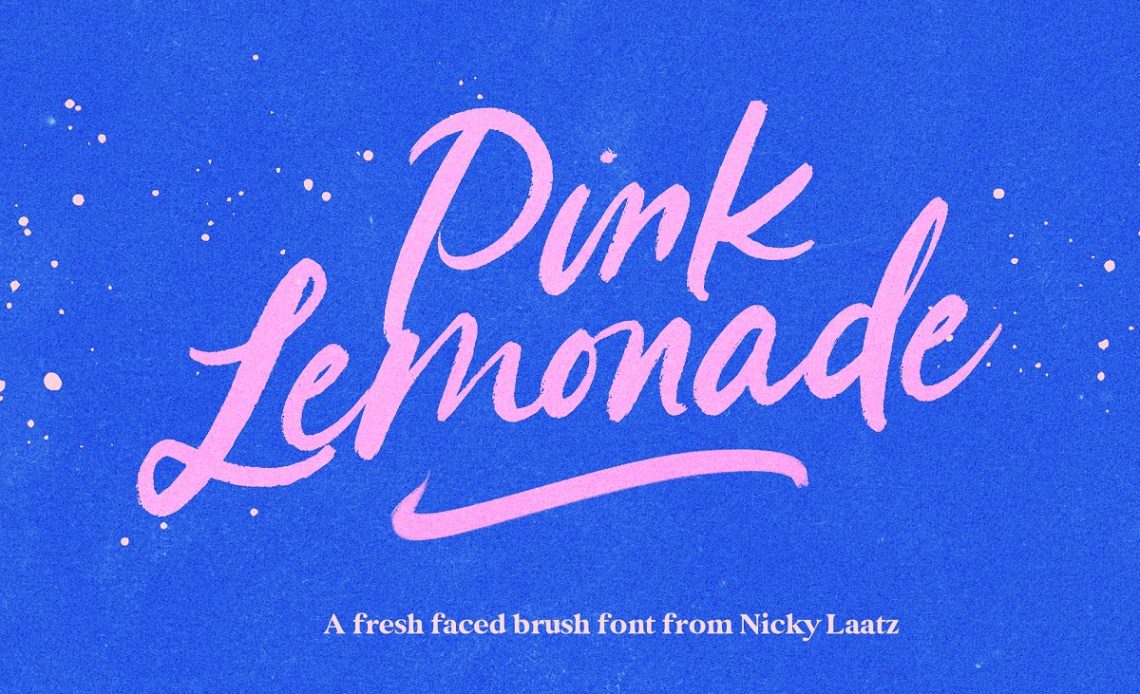
Looking for a font that can capture your audience's attention and create a lasting impression? Look no further than Pink Lemonade Brush Font! Created by the talented Nicky Laatz, this font family is designed to help you make a bold statement with your branding, advertising, and designs.
With its natural brush lettering and subtle brush texture, Pink Lemonade is a font that's as sweet and casual as it is curvy and funky. It's perfect for head-turning statements and eye-catching branding, whether you're creating posters, music brands, magazines, cookbooks, or culinary art. You can even use it for sporting brands, t-shirts, merchandise, and websites.
But what sets Pink Lemonade apart from other fonts is its 45 natural-looking Opentype ligatures. These ligatures are perfect for making your words look freshly lettered and less like a font. Plus, you can alternate between having the ligatures active and not active for an even more natural look.
In short, Pink Lemonade Brush Font is a versatile and powerful tool that can elevate your designs to the next level. So why settle for a bland font when you can make a bold statement with Pink Lemonade? Download it now and start creating!